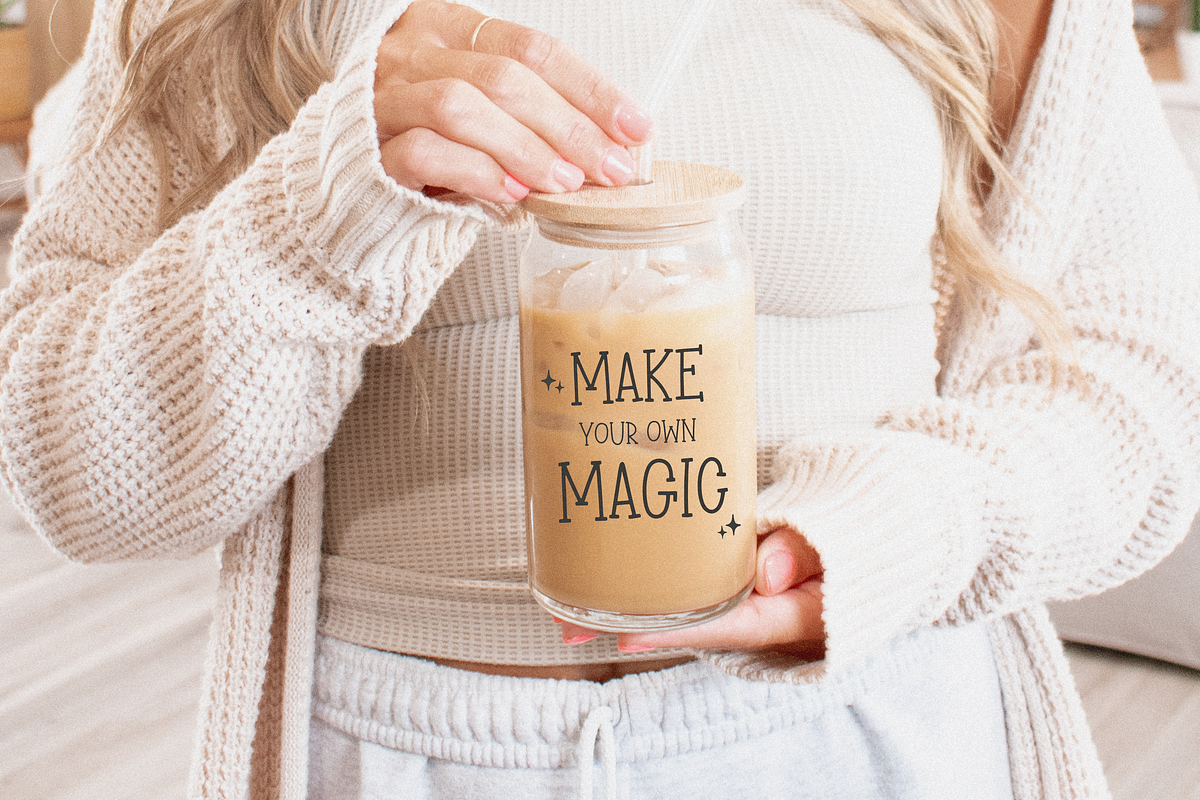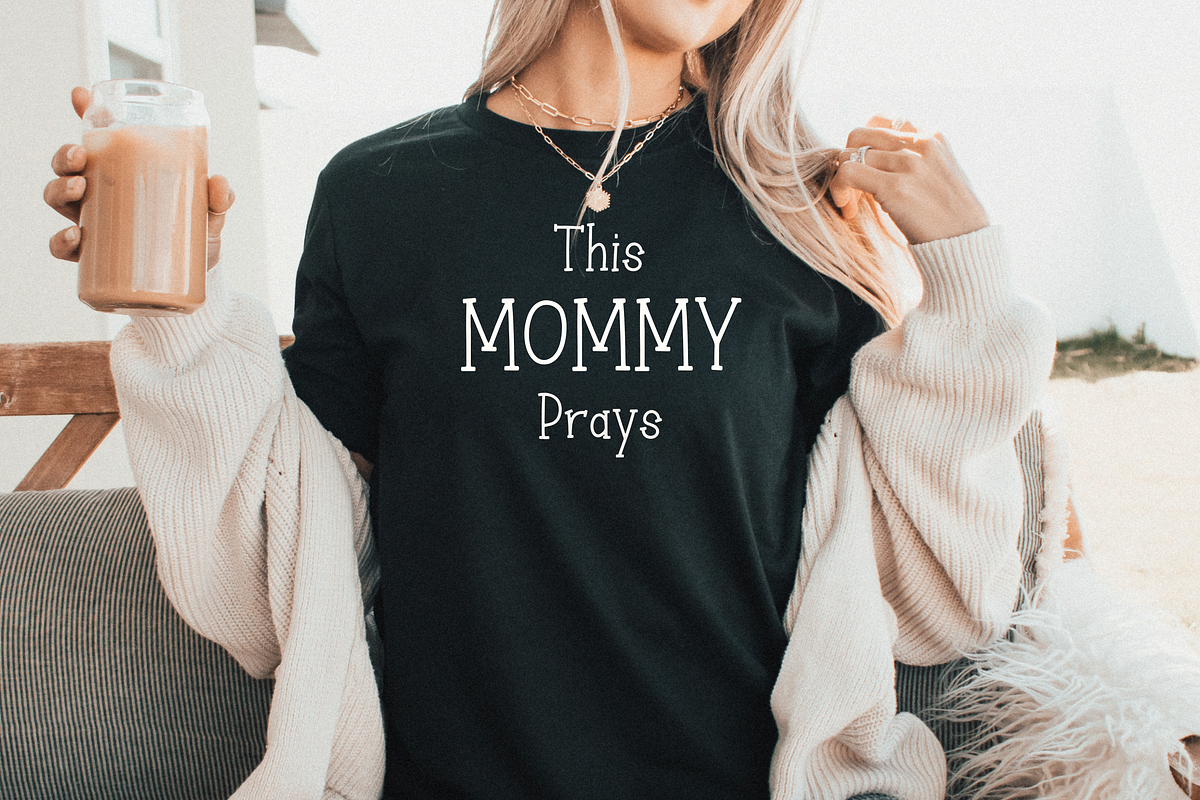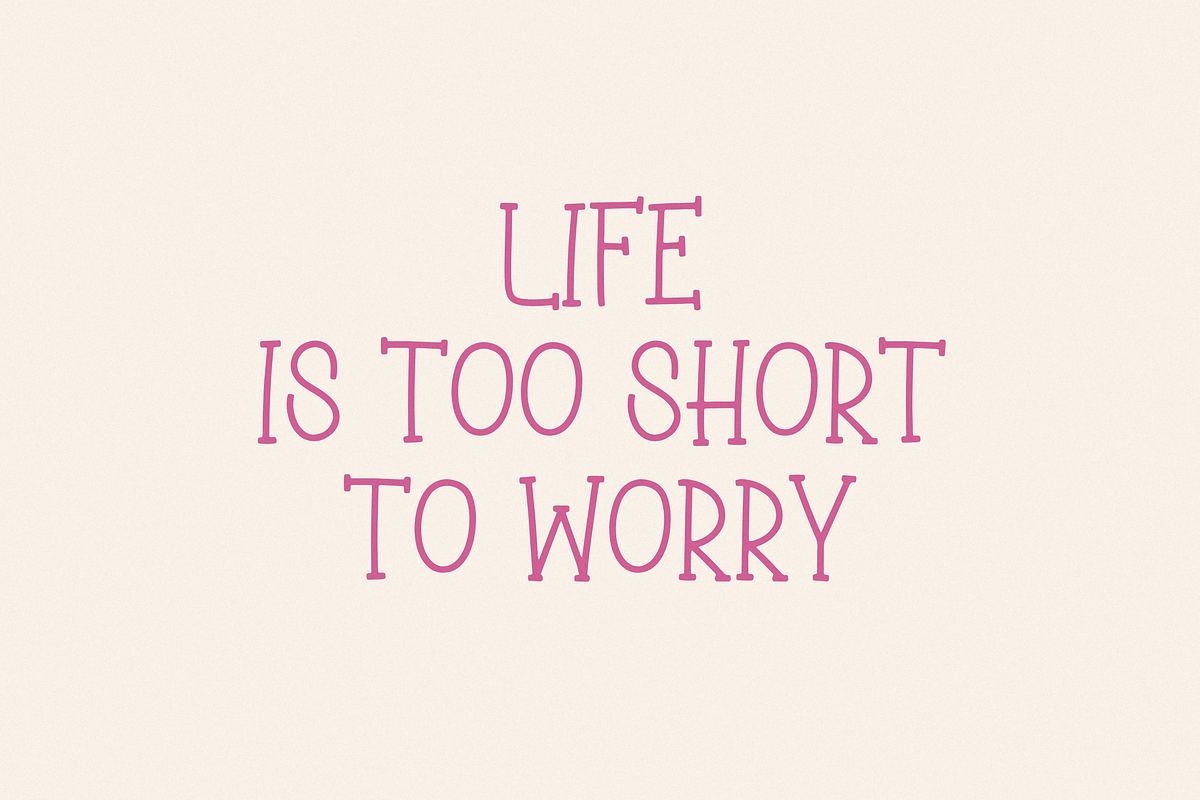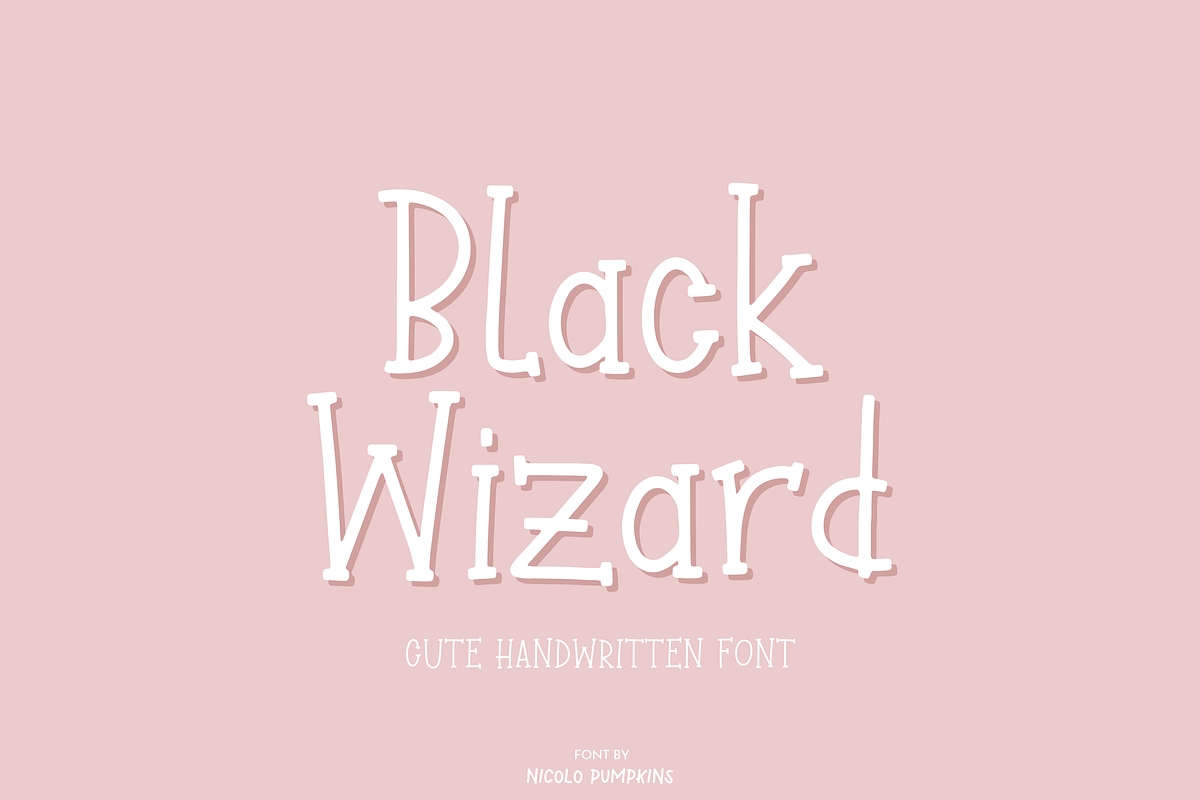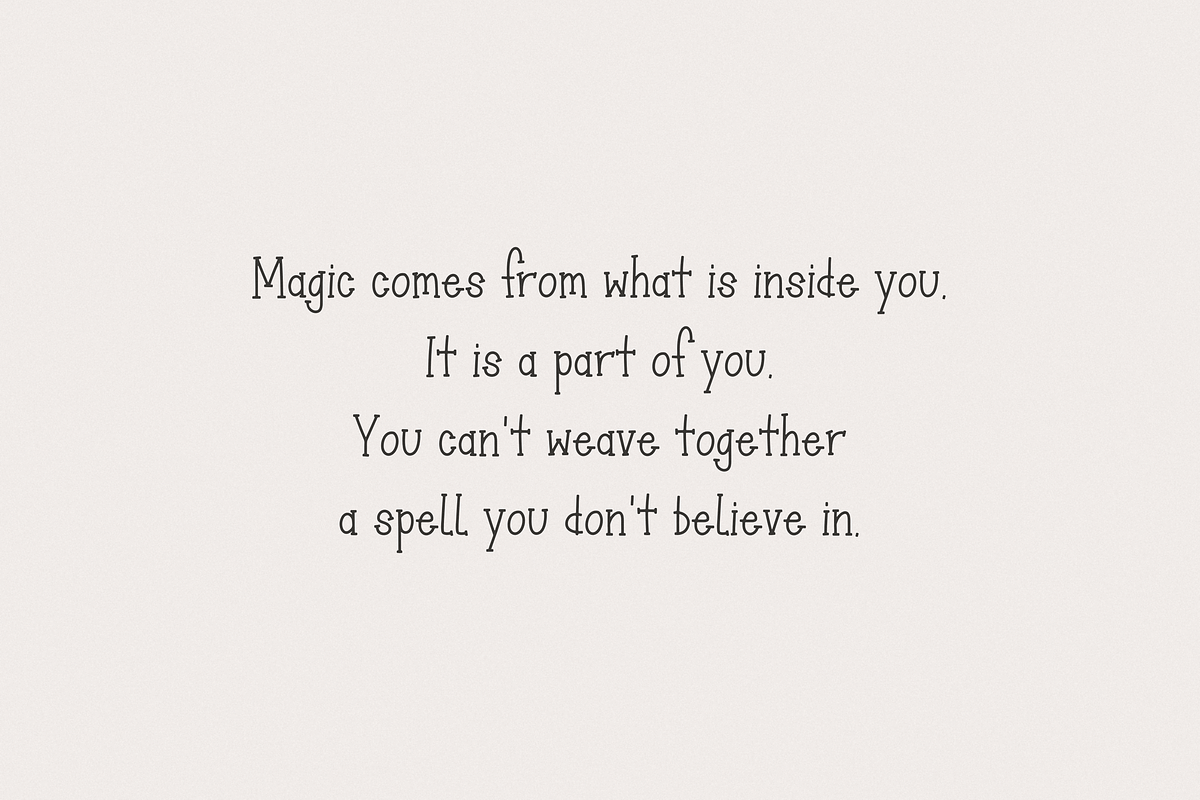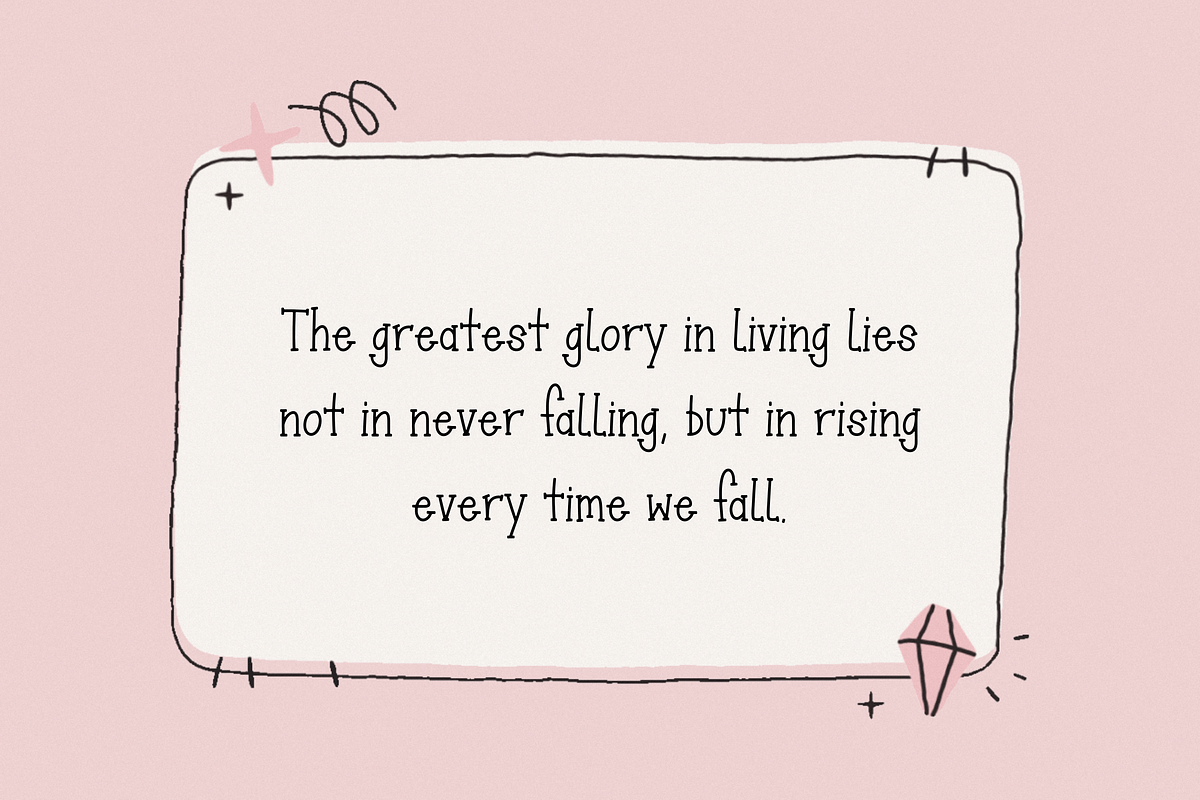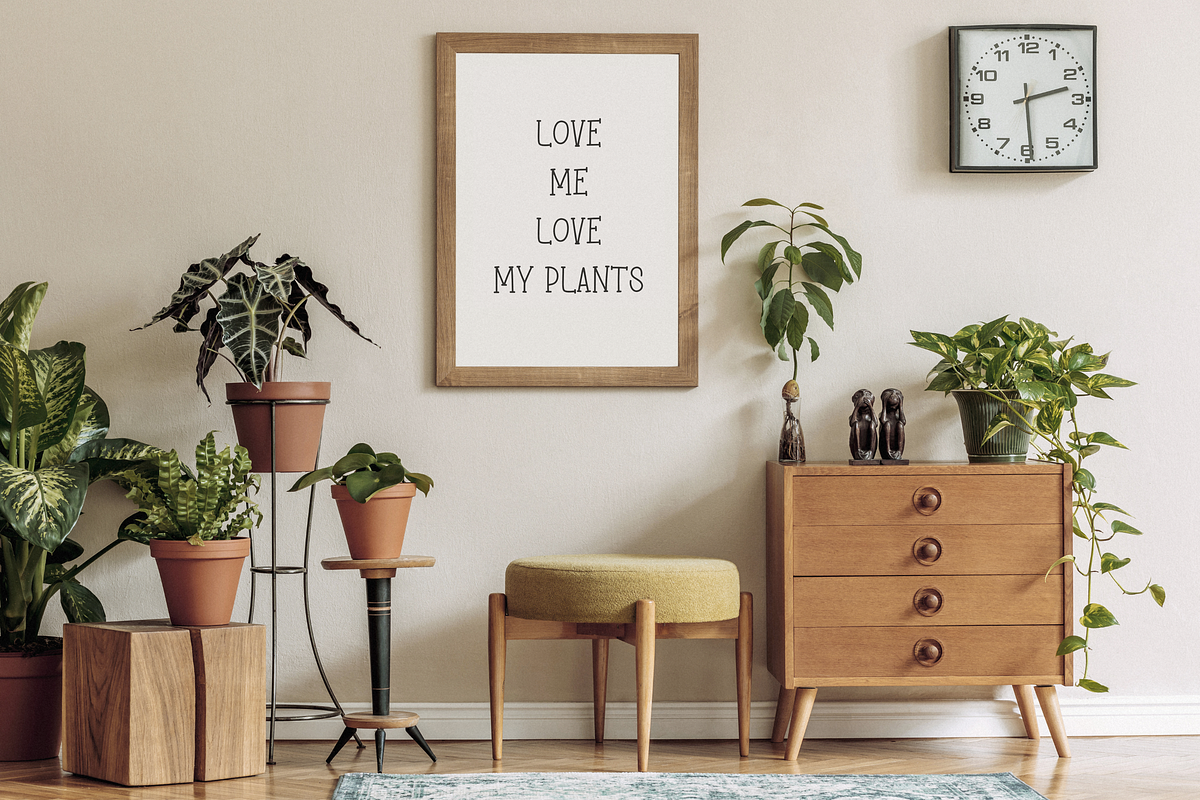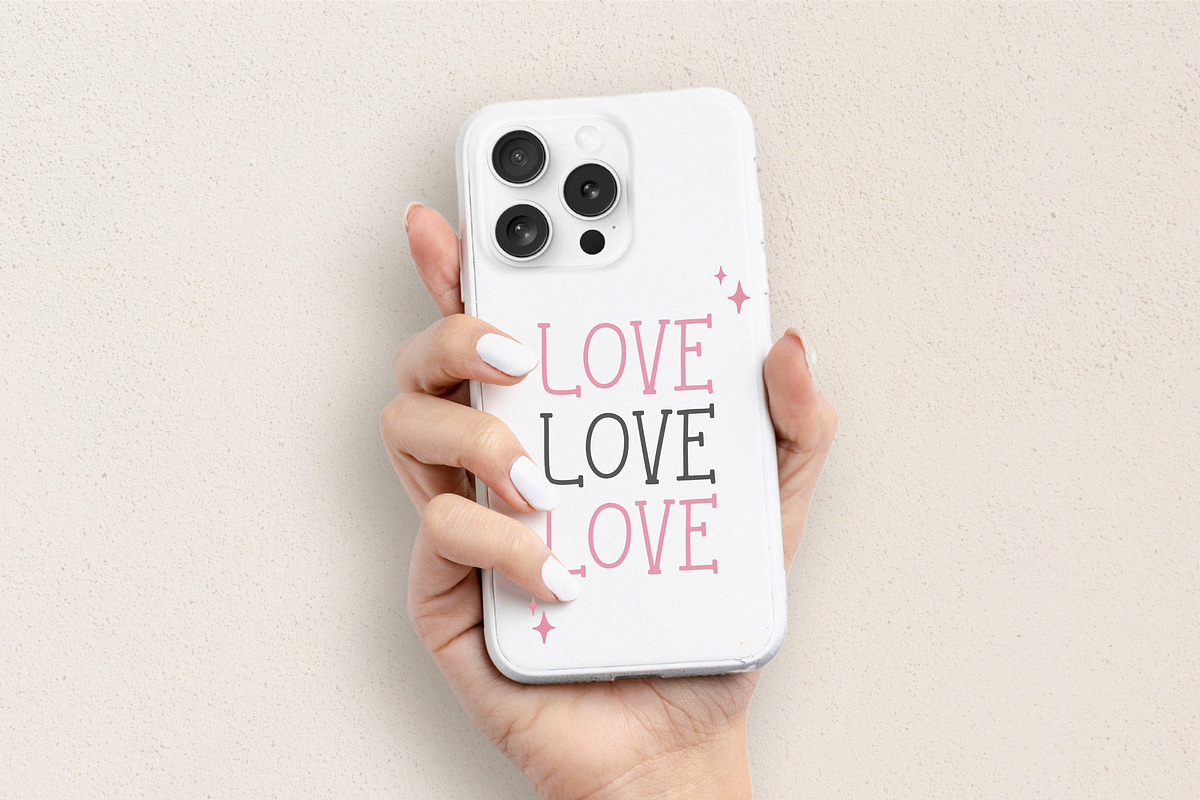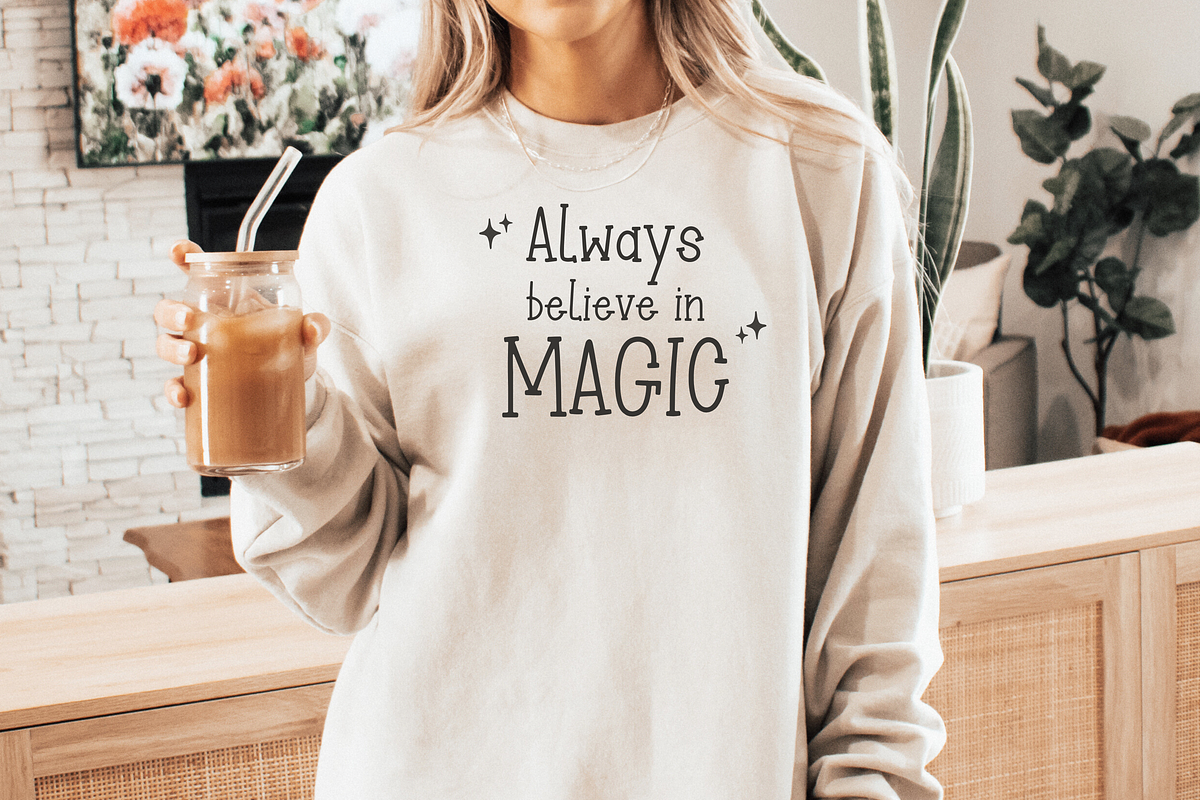
Black Wizard Font
Black Wizard FONT A cute serif handwritten font with magical style.
✦ Black Wizard FONT is perfect for magical style or cute and playful crafts and products such as shirts, mugs, logos, wedding invitations, posters, greeting cards, social media, branding, Procreate, Cricut, and more!